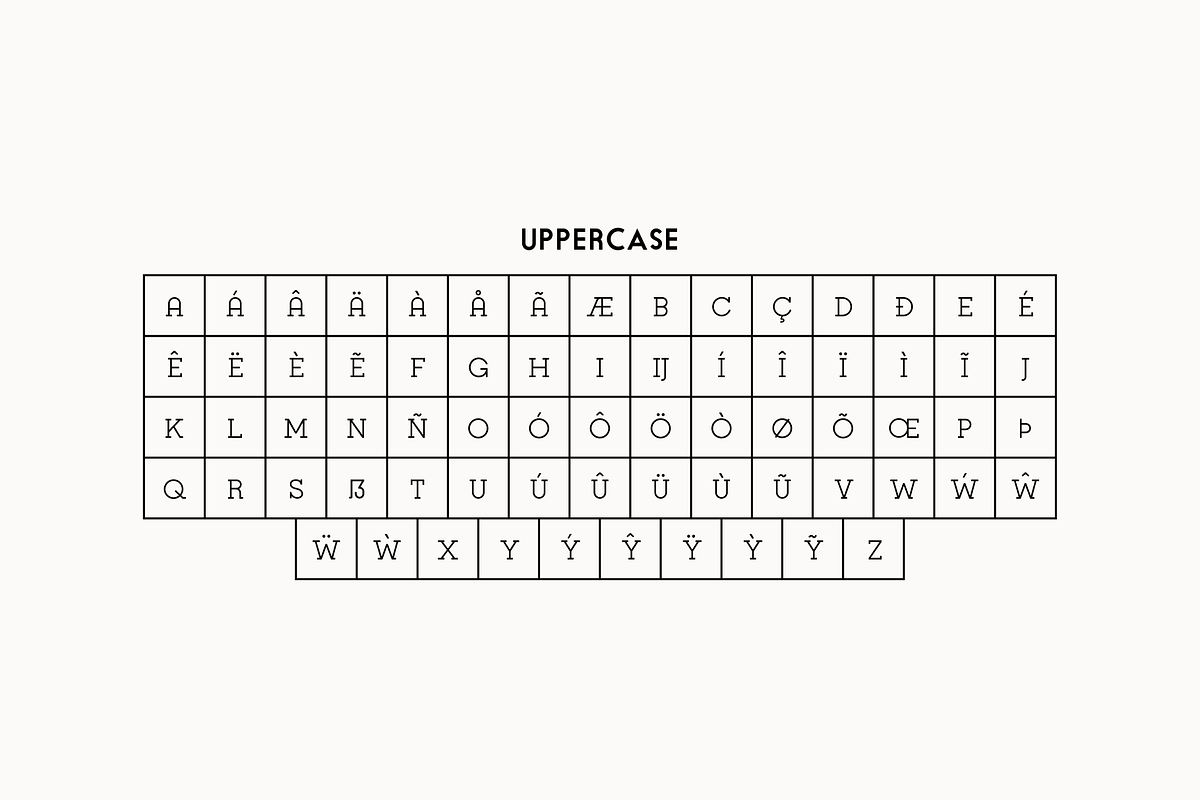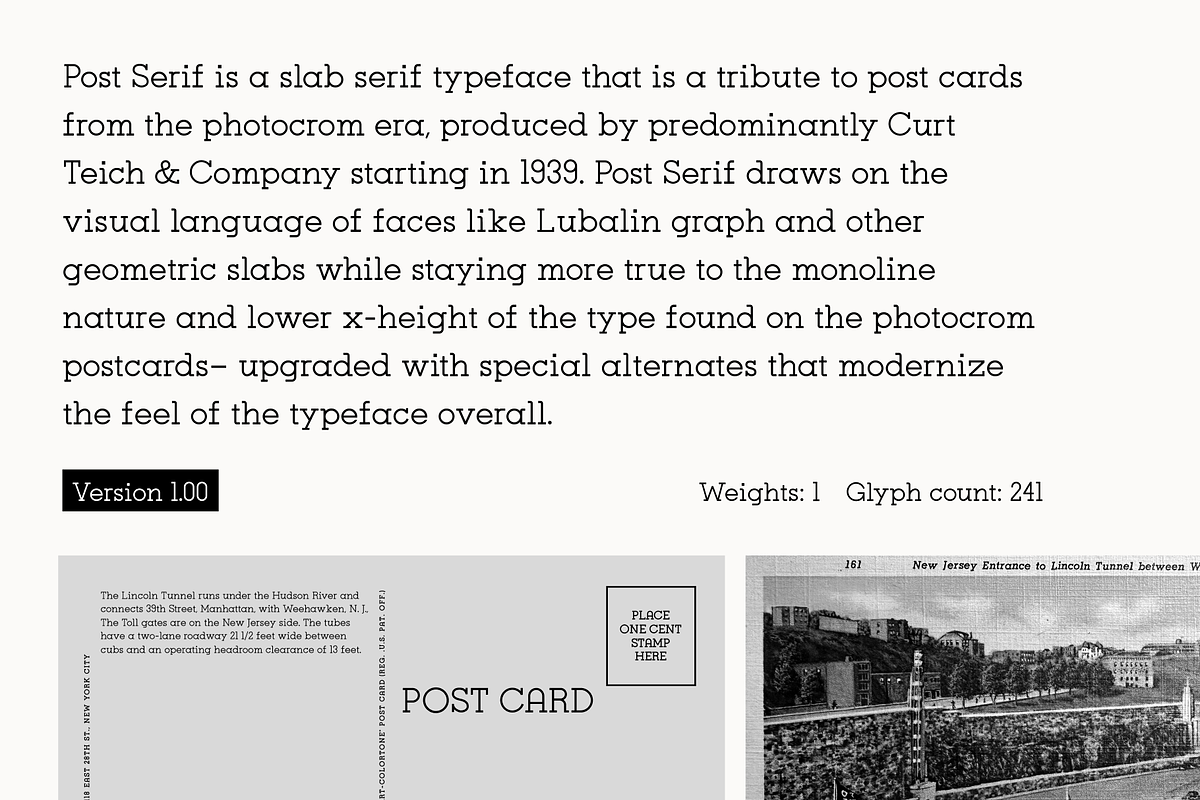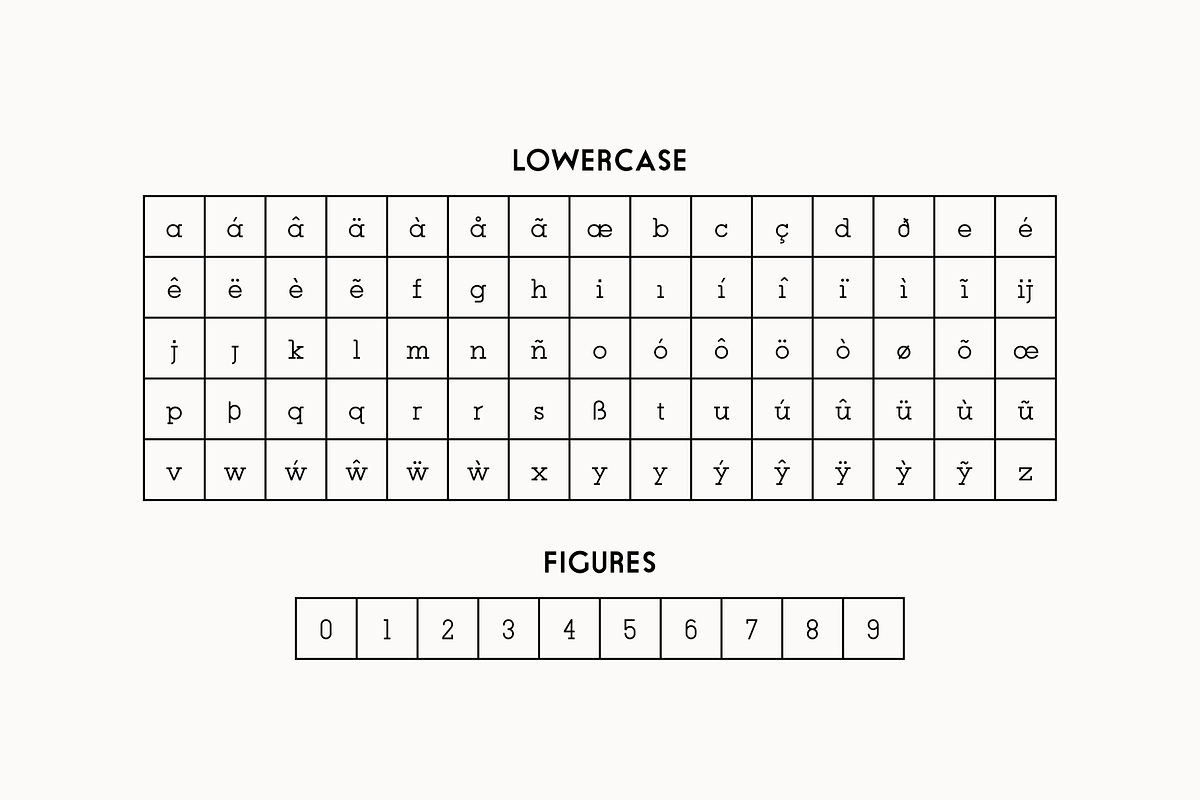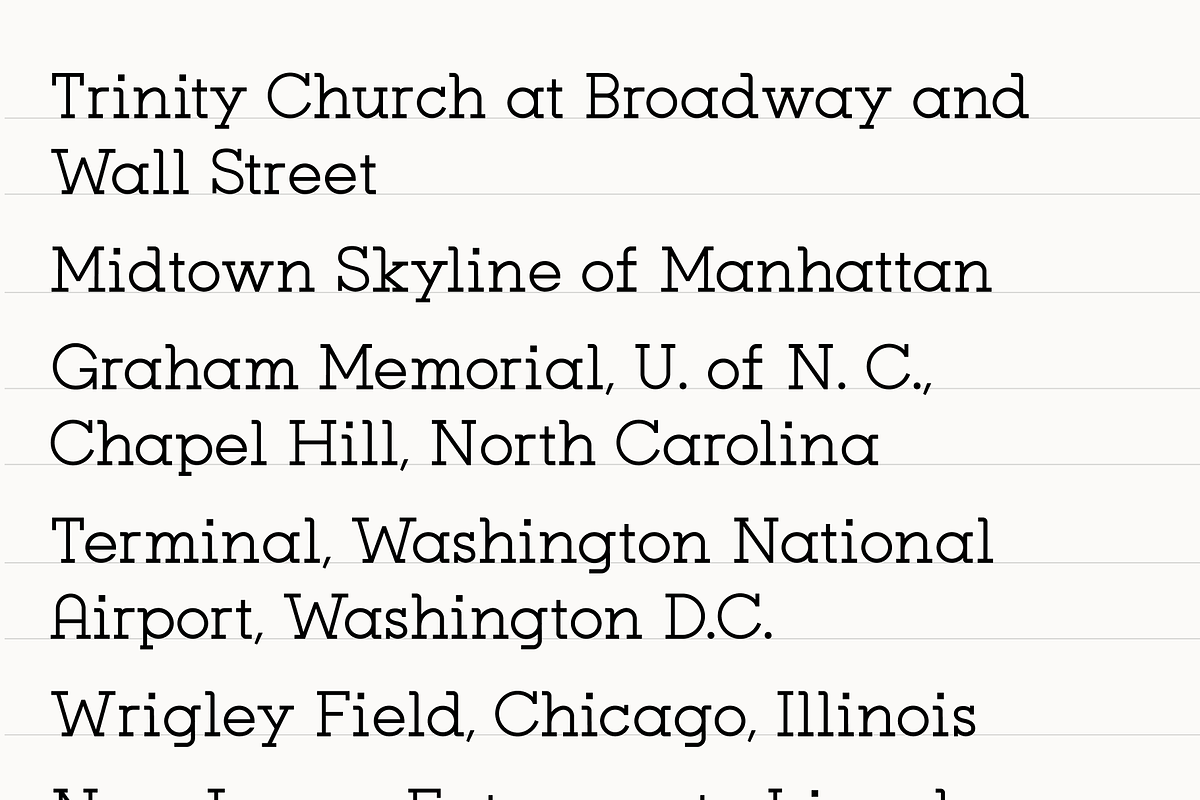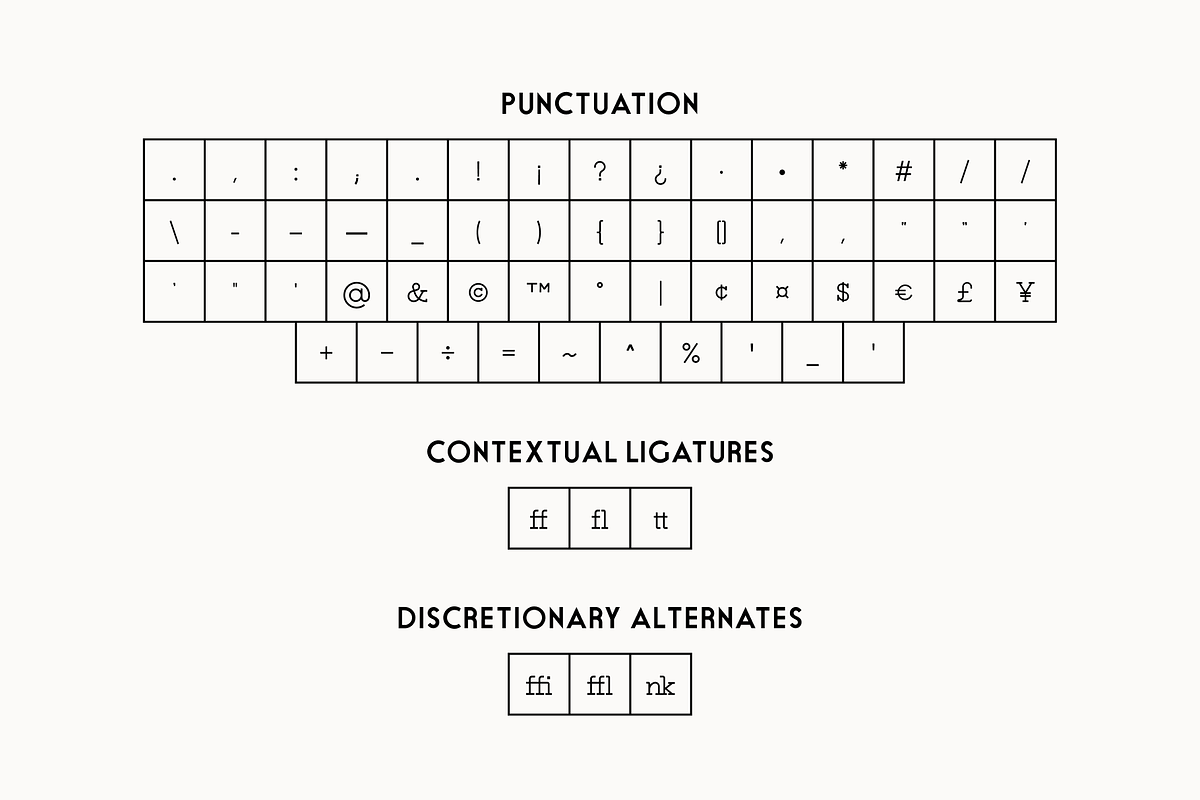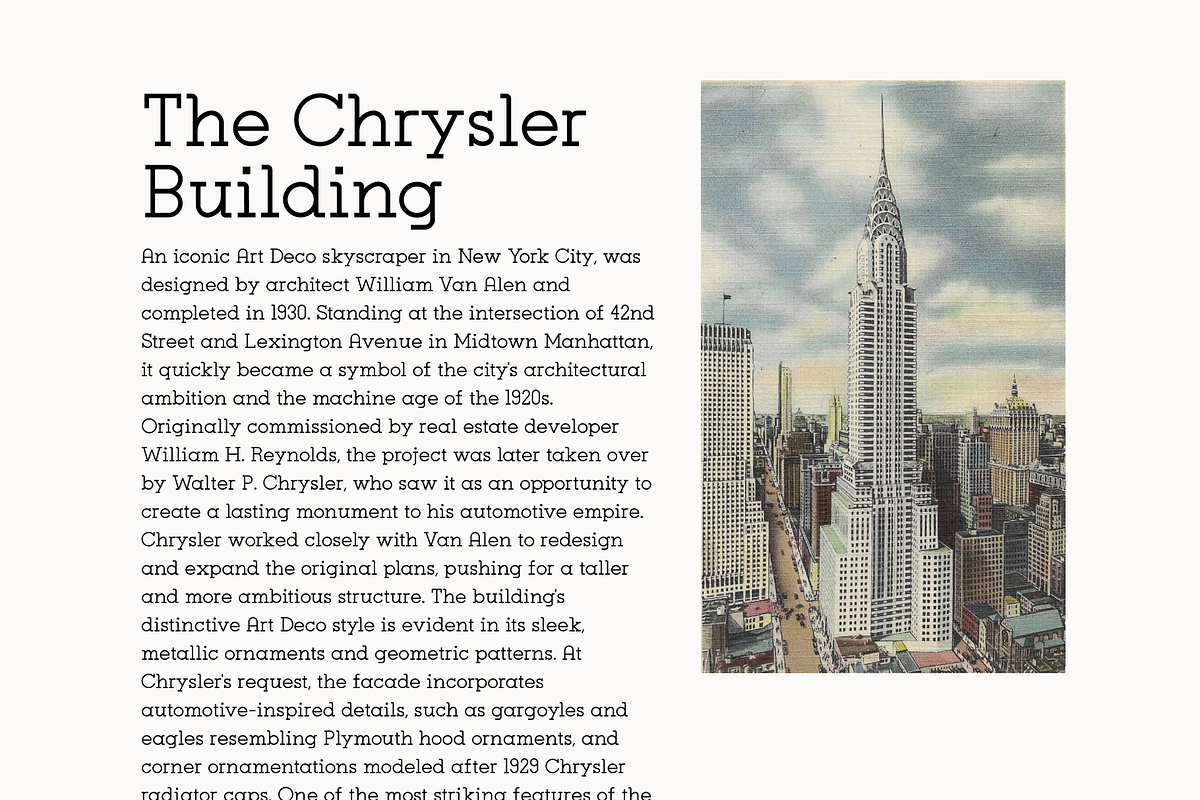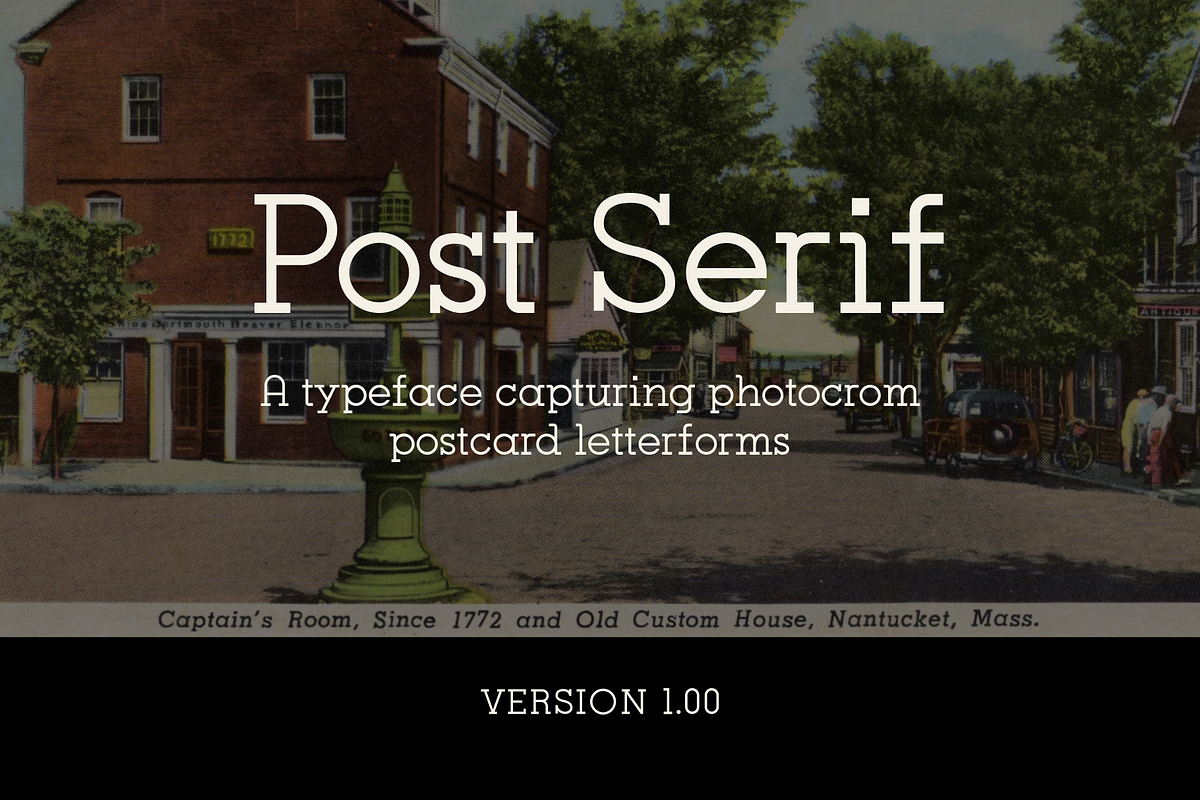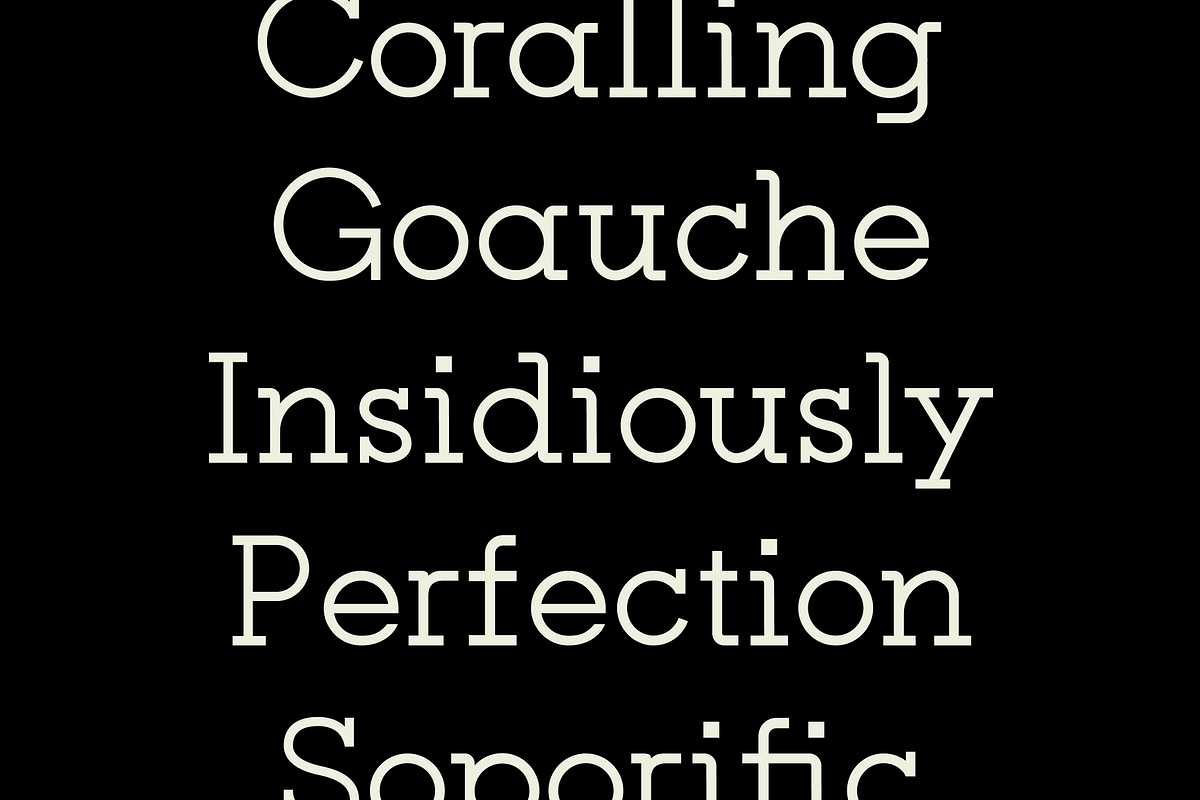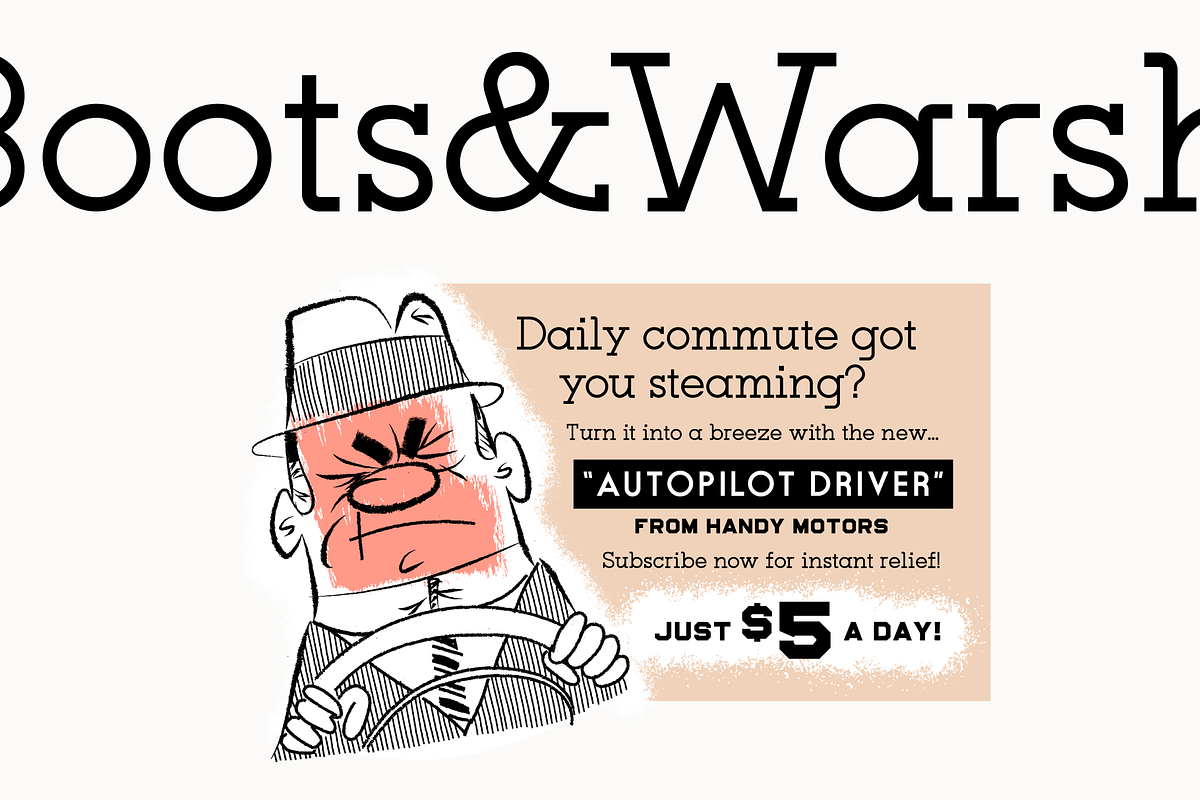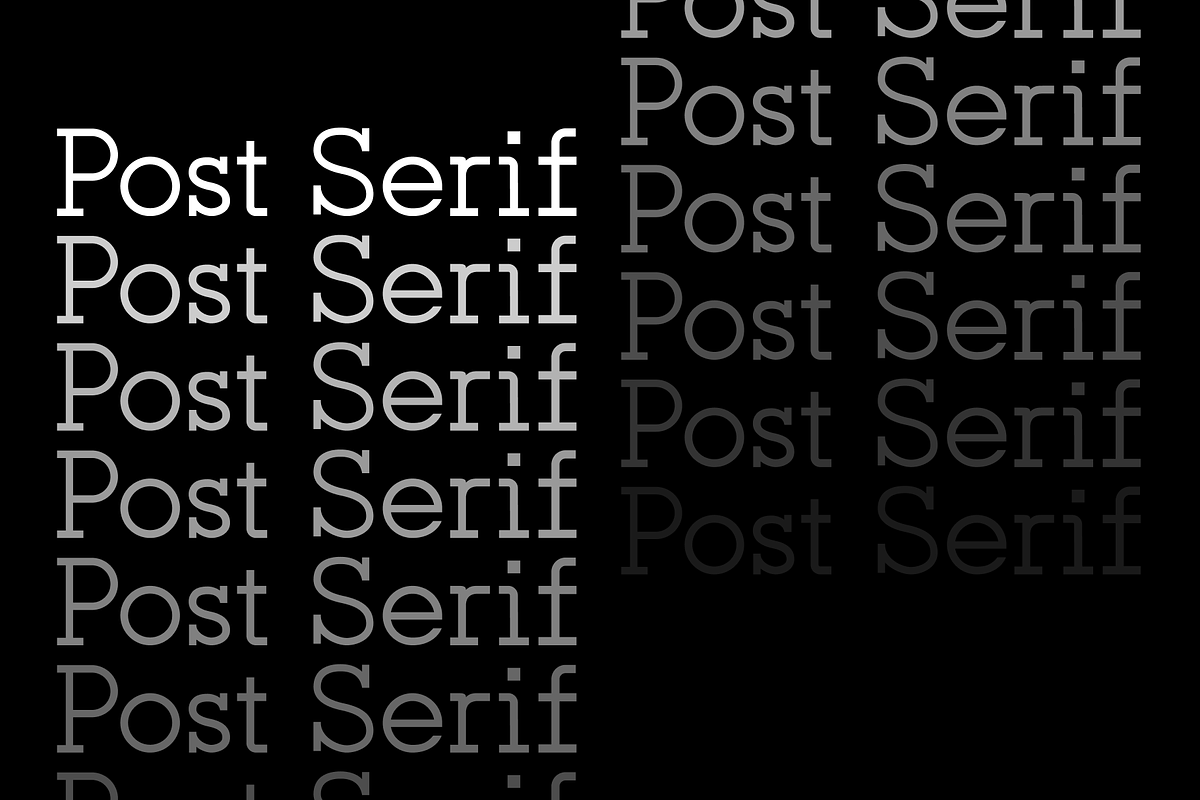
Post Serif - Vintage slab-serif
Post Serif, A single-weight slab serif that awakens fuzzy memories of snail mail. Drawn in the spirit of the vintage postcard typesettings slab-serifs with an updated touch.
More about the typeface: Post Serif is a slab serif typeface that is a tribute to postcards from the photocrom era, produced by predominantly Curt Teich & Company starting in 1939. Post Serif draws on the visual language of faces like Lubalin graph and other geometric slabs while staying more true to the monoline nature and lower x-height of the type found on the photocrom postcards– upgraded with special alternates that modernize the feel of the typeface overall.
- 80+ languages
- Caps and undercase included
- Basic symbols (not all, still a WIP)
- Multiple stylistic alternates
- Discretionary ligatures
Drawn by Jacob Waites as a part of the Archival Type Co. Project